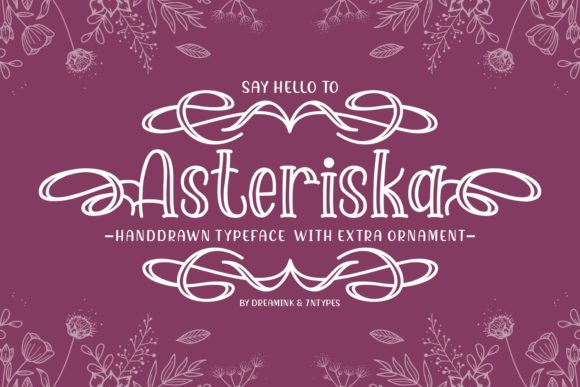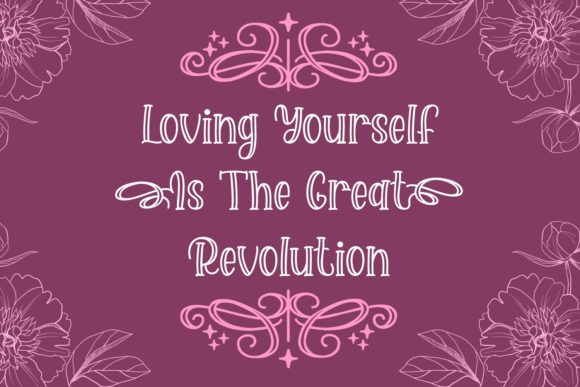
About Asteriska Font
Asteriska is a font that exudes both charm and elegance, making it an ideal choice for a wide variety of design projects. Its stunning beauty enhances various creations, adding a touch of handwritten allure that captivates the eye.
For wedding invitations, Asteriska shines brightly. Its charming and elegant appearance sets the perfect tone for a romantic celebration, leaving a lasting impression on recipients.
Thank you cards become heartfelt expressions with Asteriska. Its handwritten essence conveys sincerity and warmth, making your messages feel personal and genuine.
When it comes to quotes and greeting cards, Asteriska becomes a powerful tool. Its unique charm and smooth lines give your messages an artistic flair, making them stand out beautifully.
For logos and business cards, Asteriska elevates your brand to new heights. Its captivating handwriting reflects creativity and professionalism, making your brand memorable and distinguished.
Any design that calls for a handwritten touch finds perfection in Asteriska. From personalized stationery to social media graphics, the font adds a touch of elegance and allure that resonates with authenticity.
The font’s varying baseline adds a touch of dynamics to your typography, giving your designs a sense of movement and vitality.
Incorporating Asteriska into your designs allows you to create stunning and eye-catching pieces. Its elegance and versatility inspire your creativity, making your most imaginative ideas come to life.
In summary, Asteriska is more than just a font; it’s a charming and elegant companion that enhances your designs. Embrace its beauty and notice how it enhances wedding invitations, thank you cards, quotes, greeting cards, logos, business cards, and every other project with a mesmerizing handwritten touch. Let Asteriska be the star that illuminates your creative journey, leaving an unforgettable impression on all who encounter your delightful designs.